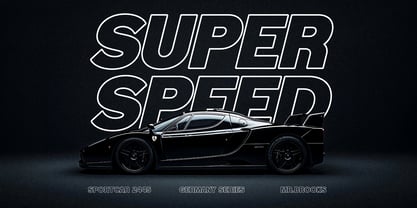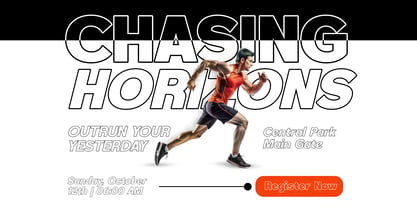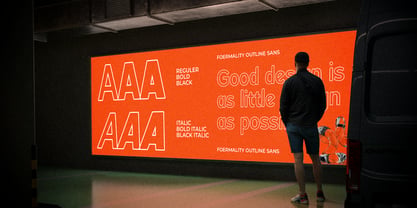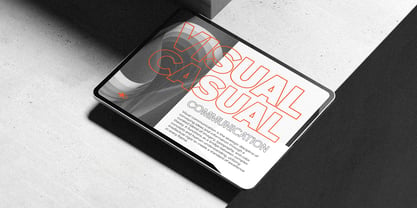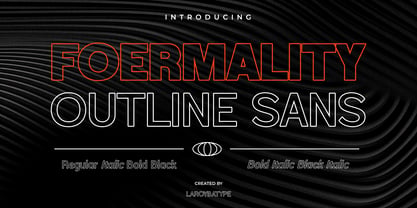
Foermality Sans Outline
Foermality Sans Outline is a modern display sans serif with a clean futuristic outline style, crafted to bring bold visual impact into posters, headlines, branding, music covers, gaming graphics, sports visuals, and contemporary editorial layouts.
Built as part of the Foermality Super Family, this typeface combines geometric precision with a strong outlined structure that creates a striking yet minimal aesthetic. Its versatile character makes it suitable for both modern digital projects and high-impact print designs.
The family includes:
• 3 Weights: Regular, Bold, Black
• 2 Styles: Regular & Italic
Foermality Sans Outline is designed especially for large-size typography where clarity, style, and personality are essential. Whether you’re creating streetwear branding, cyber-inspired posters, social media graphics, or experimental typography, this font delivers a powerful modern look.
Perfect for:
Posters, Headlines, Branding, Packaging, Editorial, Gaming, Music Covers, Social Media, YouTube Thumbnails, Sports Design, Event Flyers, and Modern Display Typography.